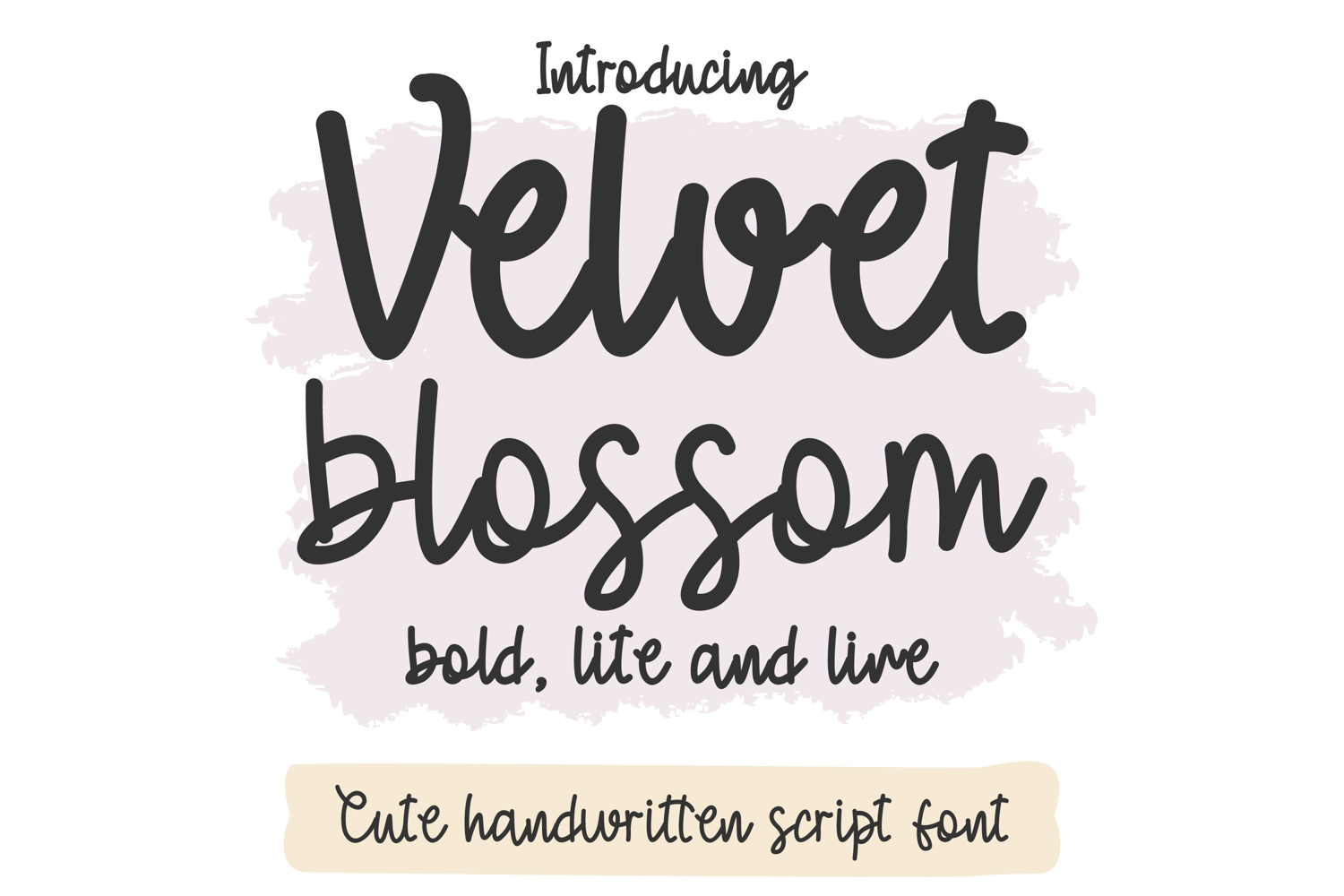
Velvet Blossom Bold
Velvet Blossom
Velvet Blossom Line
The Velvet Blossom Font Family includes Velvet Blossom Bold, Lite, and Line — a soft, sweet handwritten script designed to bring warmth and charm to every creative project. With smooth strokes, rounded curves, and a friendly handwritten feel, this font family is perfect for cozy quotes, kids’ apparel, lifestyle branding, teacher resources, and playful Cricut creations.
A standout feature? Its naturally flowing letters that keep a clean, modern aesthetic while still feeling organic. Velvet Blossom adds a gentle handwritten touch to anything that needs softness, positivity, and character.
Whether you're designing T-shirts, tote bags, nursery prints, birthday invitations, journals, stickers, greeting cards, or motivational wall art, Velvet Blossom gives you three beautiful styles you can mix and match for maximum creative flexibility.